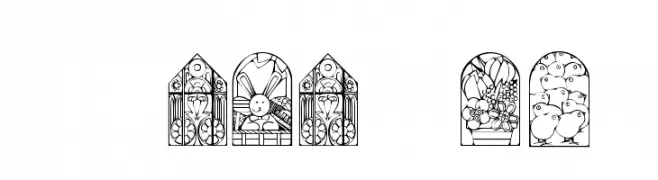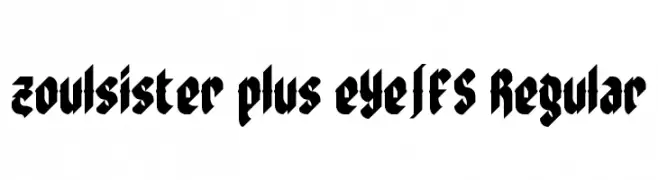
A bold, distressed stencil font with a vintage industrial feel.
A bold, distressed font with a rugged, textured appearance.
A decorative font featuring charming Easter basket illustrations for festive designs.
A decorative font with Easter-themed stained glass window illustrations.
A bold blackletter font with sharp, angular lines and a gothic aesthetic.
A bold, Western-themed font with cowboy hats on each letter.
A playful, textured font with a frosted, hand-drawn appearance.
A modern, geometric font with angular, consistent lines.
A bold, 3D decorative font with a modern yet vintage flair.